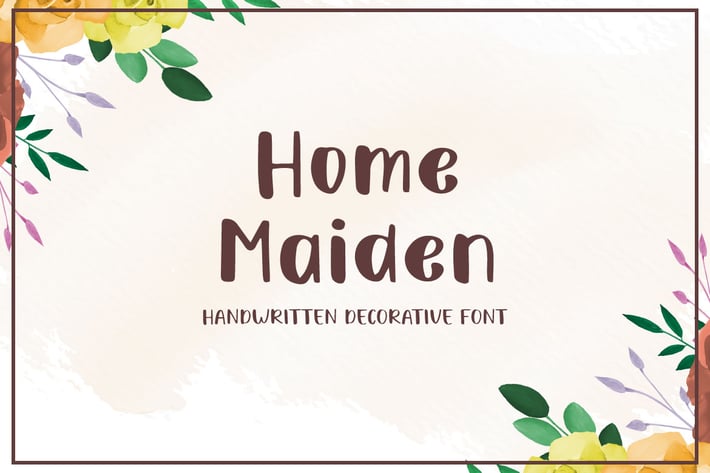
Home Maiden - Handwritten Decorative Font
Hello! Home Maiden is a handwritten decorative font.
Home Maiden can be used in any works such as wedding invitation, book title, magazine logo and many more.